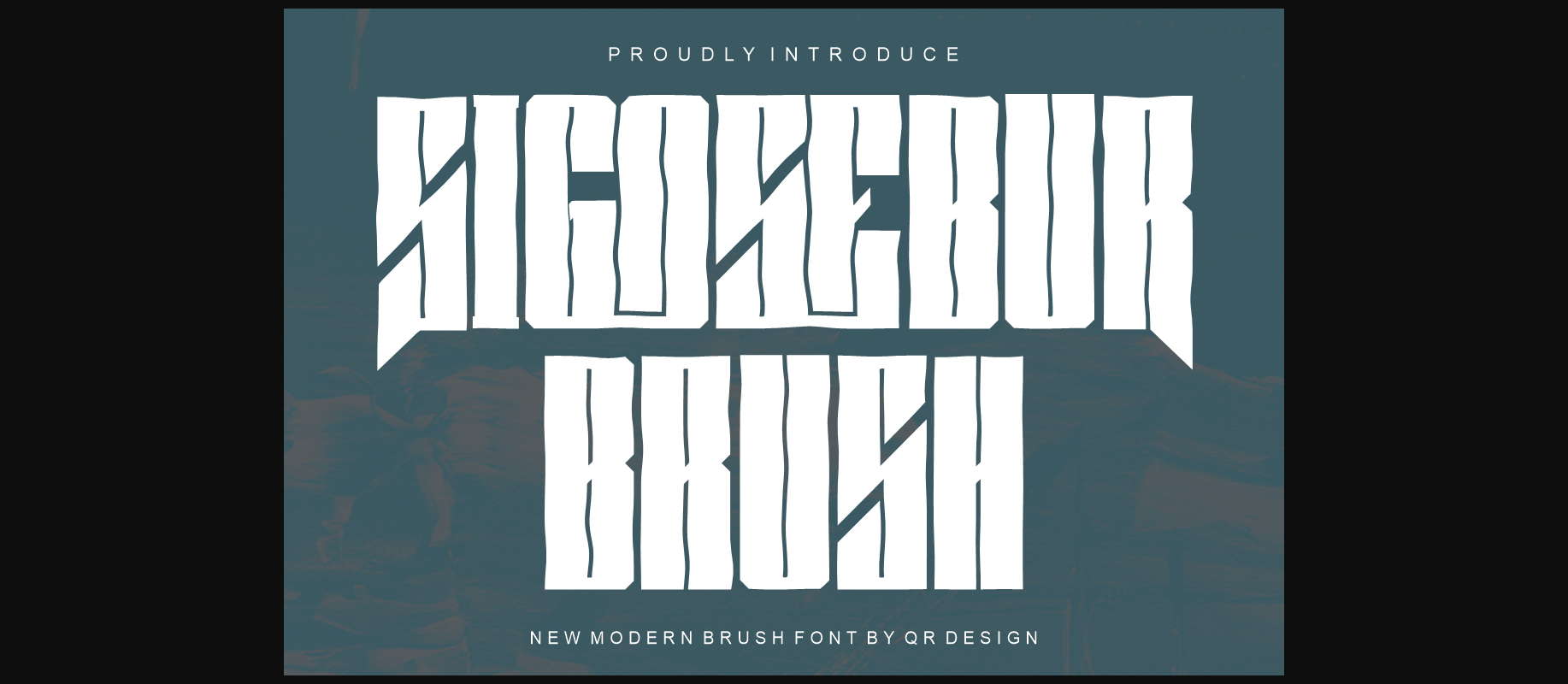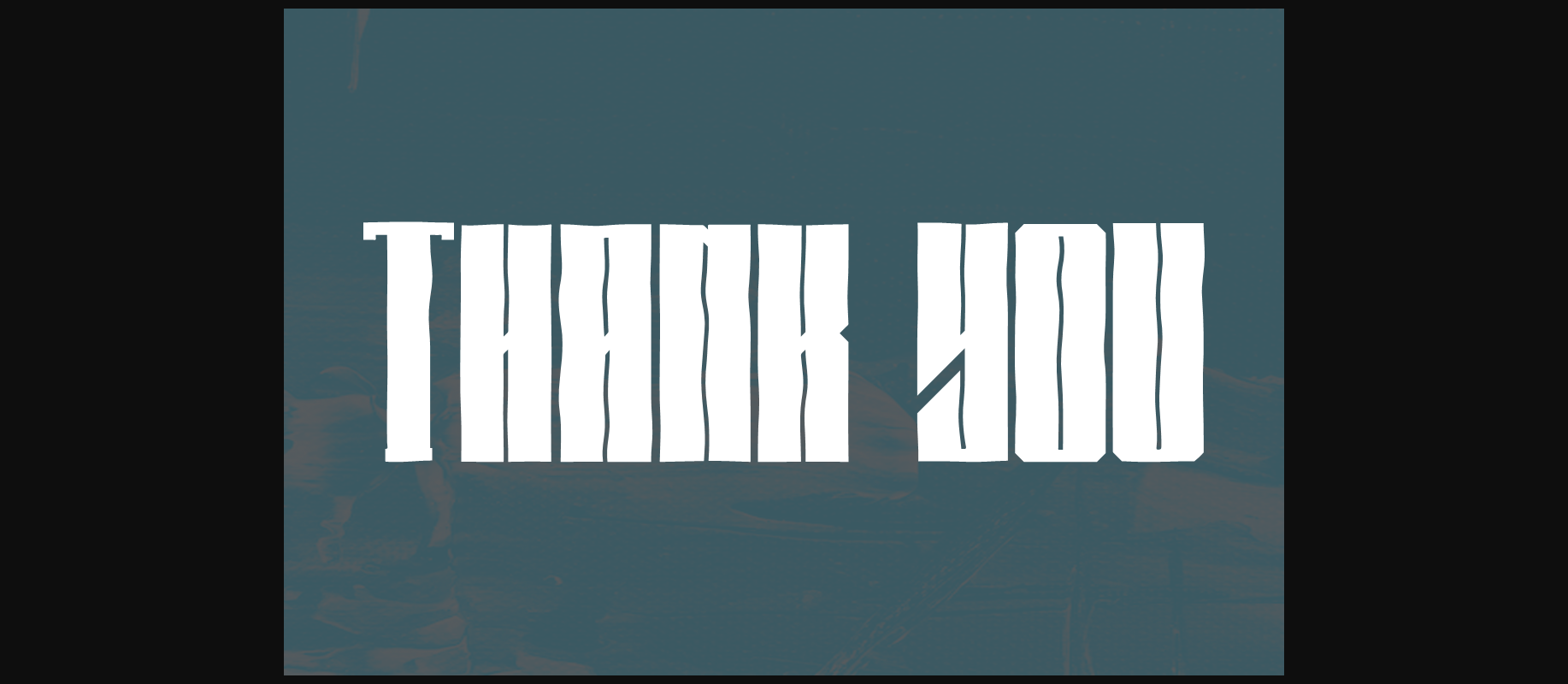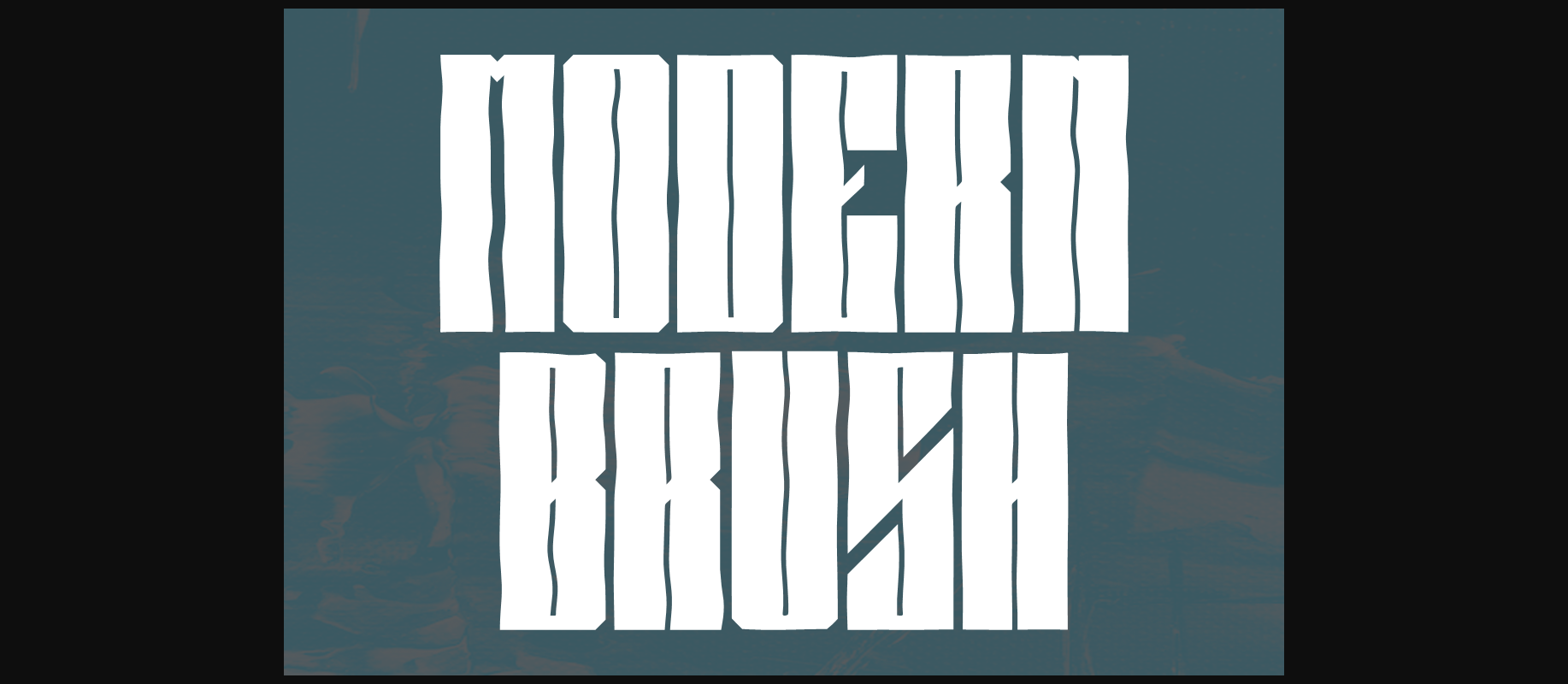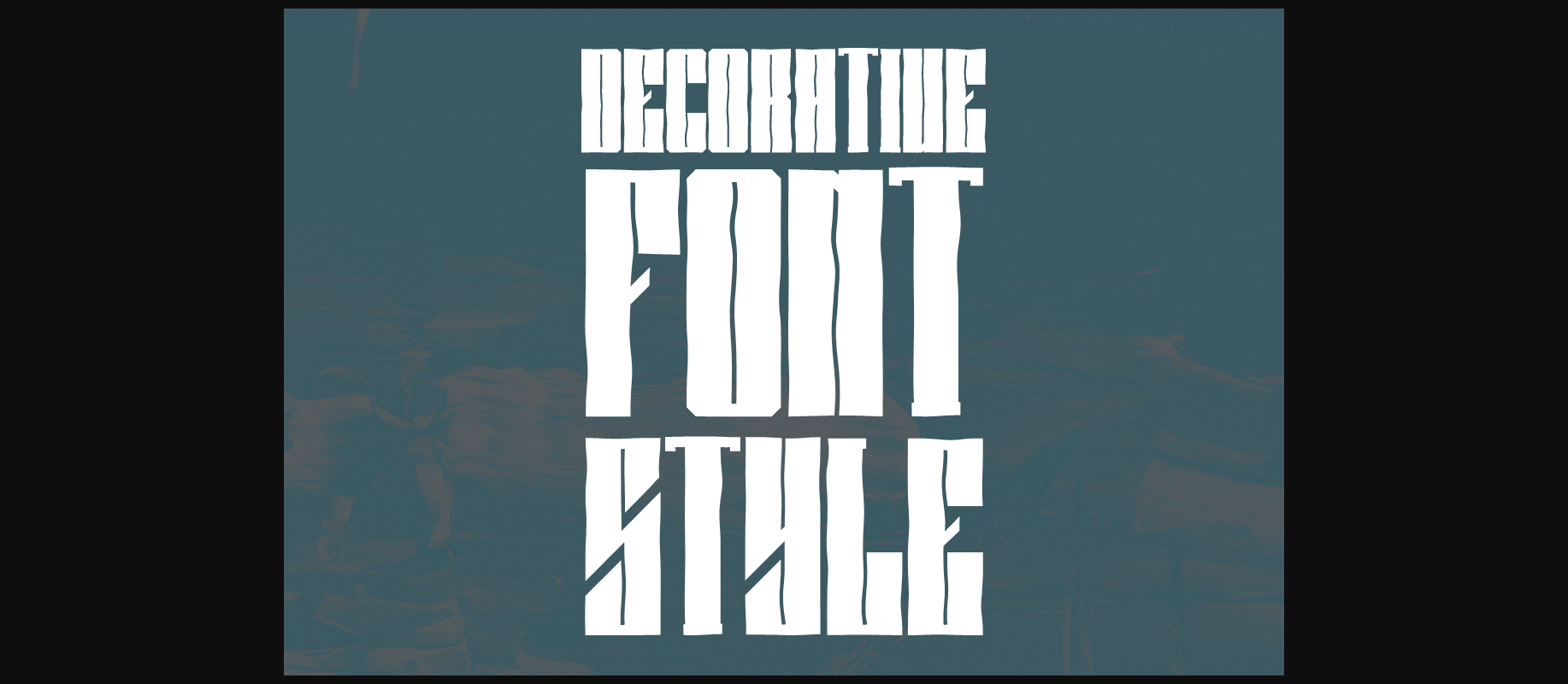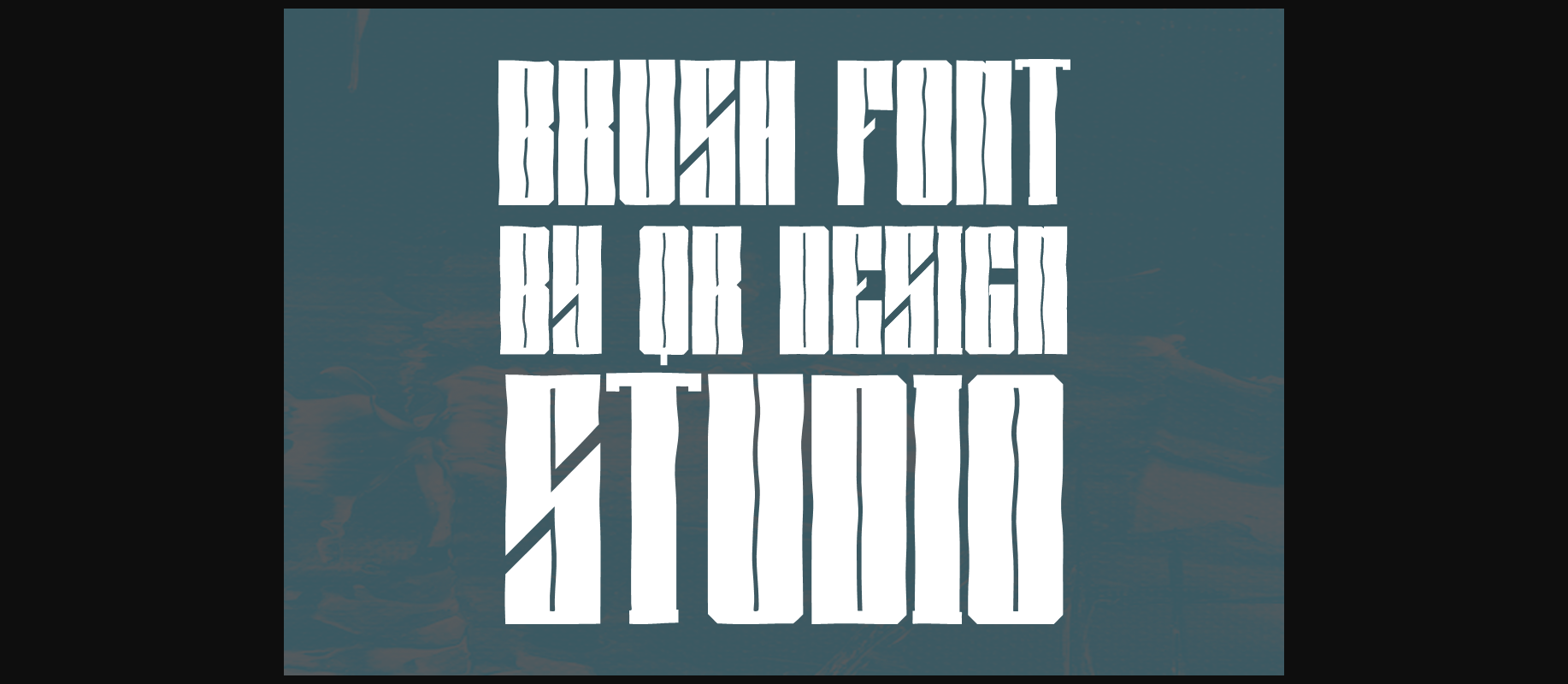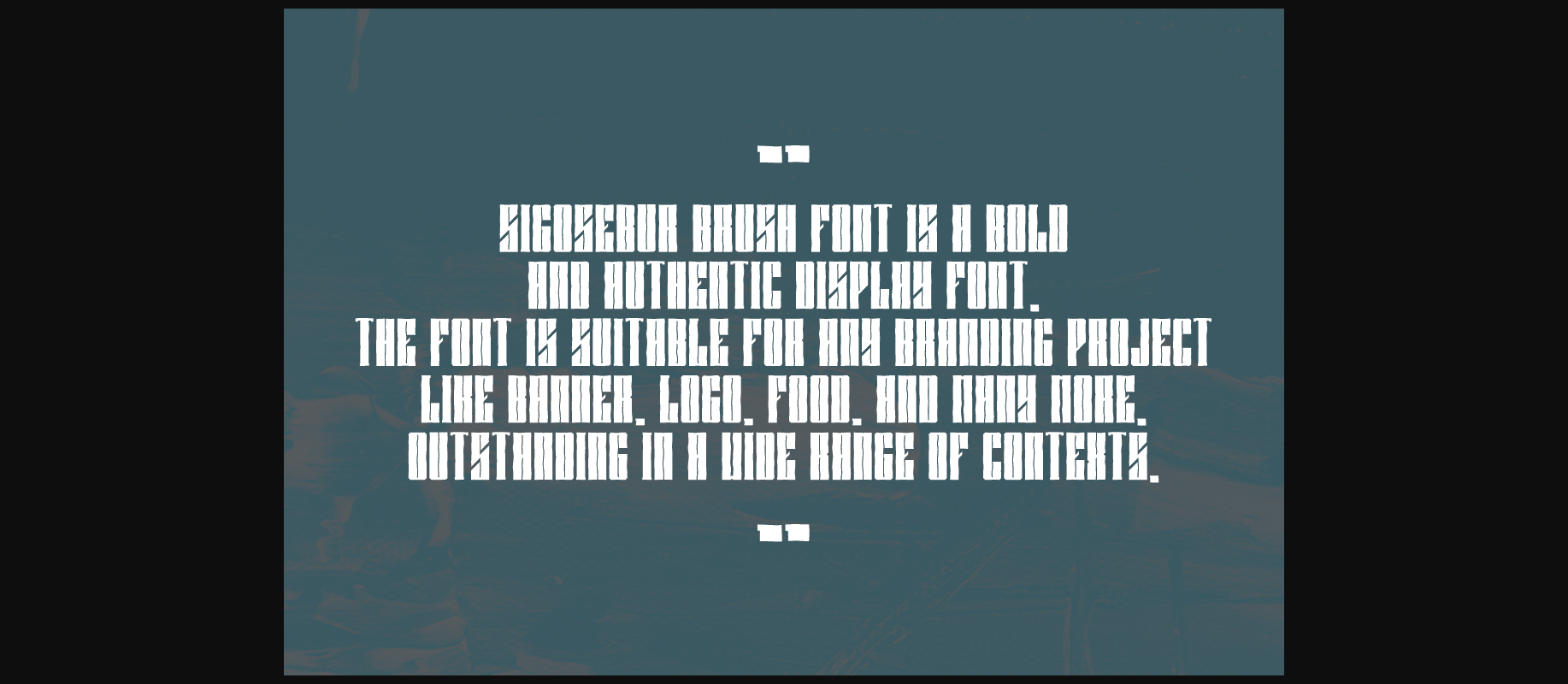
About Sigosebur Brush Font
Sigosebur Brush Font is a bold and authentic display font.
The font is suitable for any branding project like logos, sports, and many more.